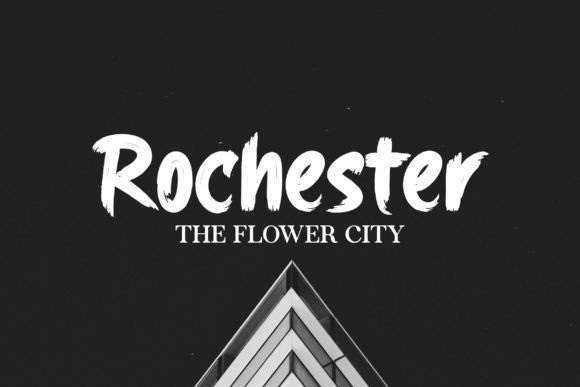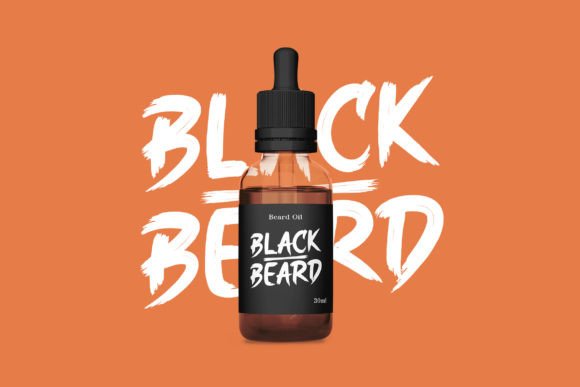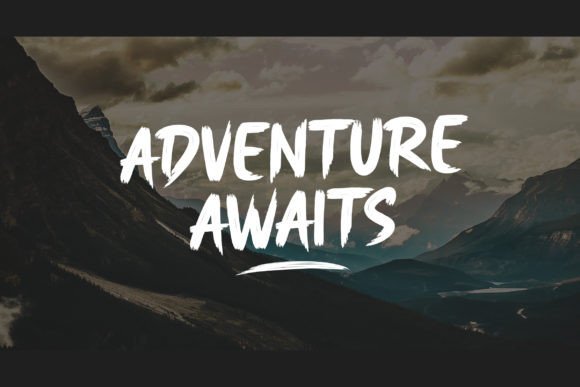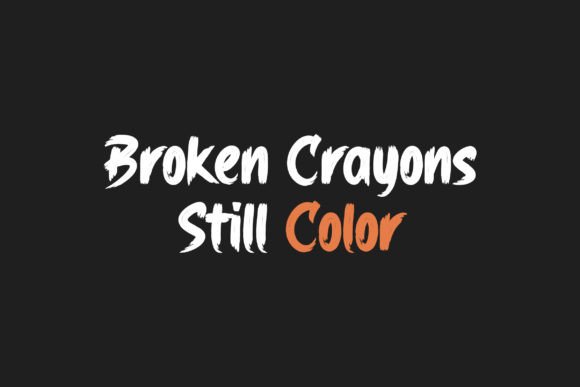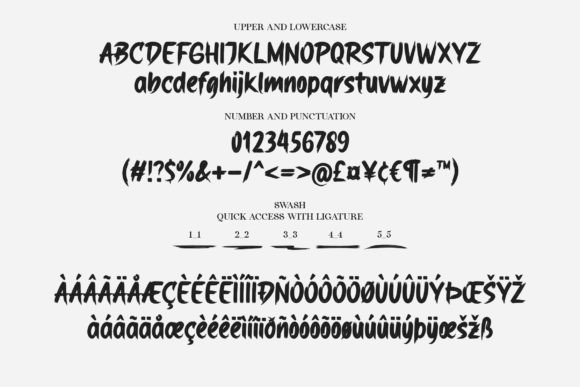
Introducing Donsky Font: The Ultimate Dry Brush Display Font for Creative Projects
Are you a designer or crafter looking for a unique and gorgeous font to elevate your DIY projects? Look no further than Donsky Font, a stunning dry brush display font that is perfect for a wide range of creative endeavors. From logos and branding projects to product packaging, mugs, quotes, posters, shopping bags, t-shirts, book covers, labels, photography, watermarks, and more, Donsky Font is the ideal choice for bringing your ideas to life.
What is Donsky Font?
Donsky Font is a carefully crafted dry brush display font that boasts a distinctive, hand-painted look. Its unique texture and rough edges give it a charming, organic feel that is sure to add a touch of personality to any project. Whether you’re looking to create a bold and eye-catching logo or a beautiful and artistic poster, Donsky Font is the perfect tool for the job.
Key Features of Donsky Font
- Dry Brush Texture: Donsky Font features a authentic dry brush texture that gives it a rough, hand-painted look.
- Unique and Exclusive: Donsky Font is a one-of-a-kind font that is sure to make your projects stand out from the crowd.
- High-Quality Design: Donsky Font is designed with precision and care, ensuring that it looks great in any size or format.
- Multilingual Support: Donsky Font supports multiple languages, making it a great choice for projects that require non-English text.
What Can I Use Donsky Font For?
Donsky Font is an incredibly versatile font that can be used for a wide range of creative projects, including:
- Logos and Branding: Use Donsky Font to create a unique and memorable logo for your business or brand.
- Product Packaging: Add a touch of personality to your product packaging with Donsky Font.
- Mugs and Ceramics: Create beautiful and functional mugs, plates, and other ceramics with Donsky Font.
- Quotes and Posters: Use Donsky Font to create inspiring and eye-catching quotes and posters.
- Shopping Bags and T-Shirts: Add a touch of style to your shopping bags and t-shirts with Donsky Font.
- Book Covers and Labels: Use Donsky Font to create eye-catching book covers and labels.
- Photography and Watermarks: Add a touch of elegance to your photographs with Donsky Font.
Why Choose Donsky Font?
There are many fonts available online, but Donsky Font stands out from the crowd for several reasons:
- Unique Design: Donsky Font has a truly unique design that is sure to make your projects stand out.
- High-Quality: Donsky Font is designed with precision and care, ensuring that it looks great in any size or format.
If you’re looking for a unique and gorgeous font to elevate your DIY projects, look no further than Donsky Font. With its dry brush texture, unique design, and high-quality construction, Donsky Font is the perfect choice for designers and crafters alike. Whether you’re creating logos, product packaging, quotes, posters, or any other type of project, Donsky Font is sure to bring your ideas to life.